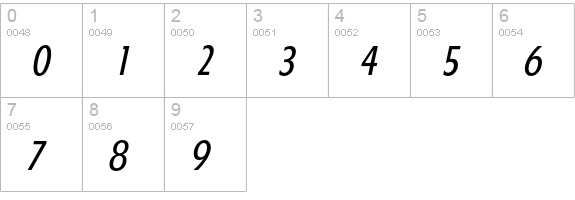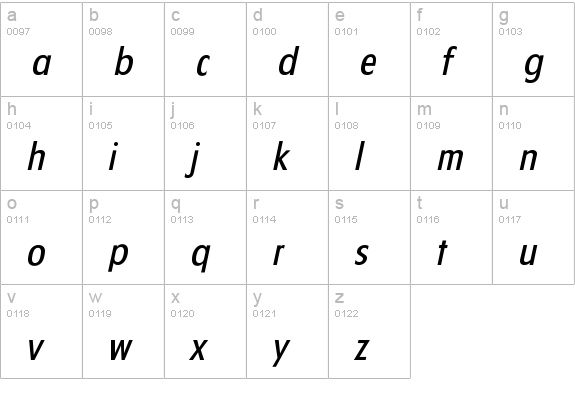
Florida-RegularIta font exudes a sense of elegance and sophistication with its sleek and stylish design. The italicized version of the Florida Regular font adds a touch of flair and personality to any project. Its clean lines and smooth curves make it perfect for a wide range of design applications, from branding to editorial design. What sets Florida-RegularIta font apart is not just its aesthetic appeal, but also the fact that it is available for free download at FontsMarket.com. This means that you can easily access this beautiful typeface without any cost, making it a valuable addition to your font collection. Whether you're working on a personal project or a client's design, Florida-RegularIta font is sure to elevate your work with its timeless charm and versatility.